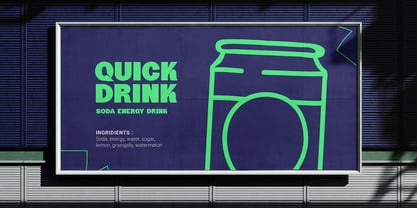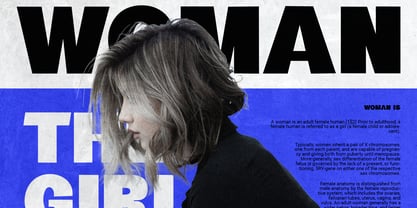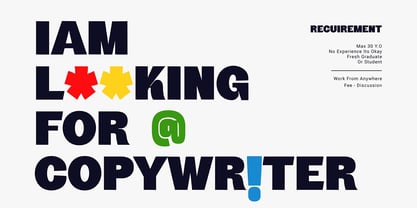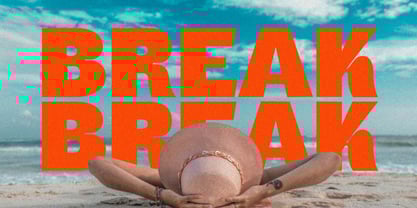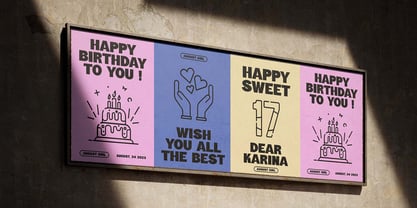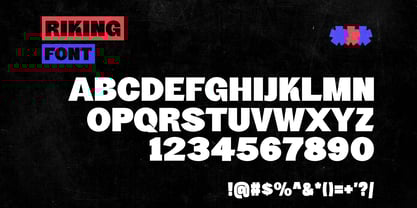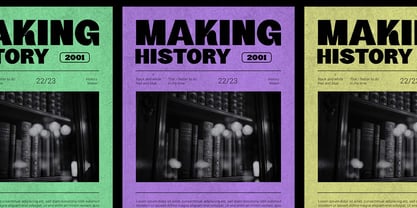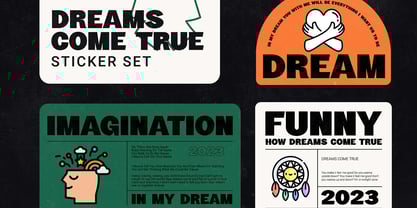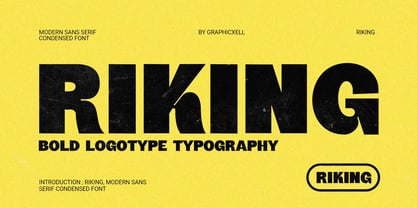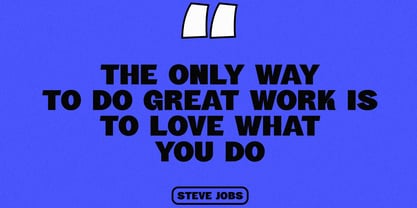
Riking
by Graphicxell
Riking is a bold, modern display font with a unique edge. It blends strong sans serif structure with a touch of retro influence—thanks to its thick, curved letterforms and solid style. If you’re looking to create standout branding or logos with real presence, Riking delivers powerful impact right from the first glance.
Because of its clean layout and distinctive shape, Riking fits perfectly into a wide range of creative projects. From logos to product labels, and from tech branding to sports graphics, this font adds bold energy wherever it appears. Its well-balanced structure keeps it readable, while the custom styling gives it an unmistakable personality.
Riking works especially well for agencies, companies, or modern businesses that want to make a statement. At the same time, it also fits perfectly into gaming designs, esports visuals, fashion, food products, and event promotions. Whether you're building something professional or playful, this font adapts beautifully.
💡 Best Uses for Riking:
• Logo design and corporate branding
• Magazine headers and product packaging
• Tech startups and creative agencies
• Gaming visuals and esports content
• Brochures, flyers, and ad campaigns
• Canva and digital templates
• Event posters and social media content
• Invitations, menus, and merchandise
🚀 Why Choose Riking?
Riking offers strength, style, and flexibility in one modern typeface. Its bold form gives your work a confident look, while its retro edge adds creative flair. If you need a display font that grabs attention and keeps it, Riking is a strong choice.